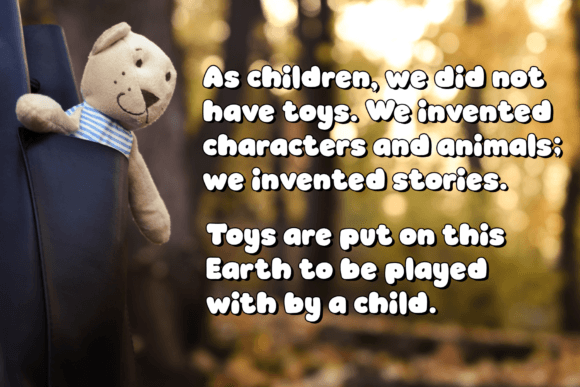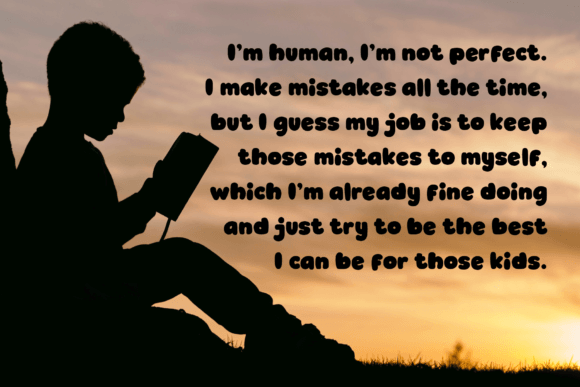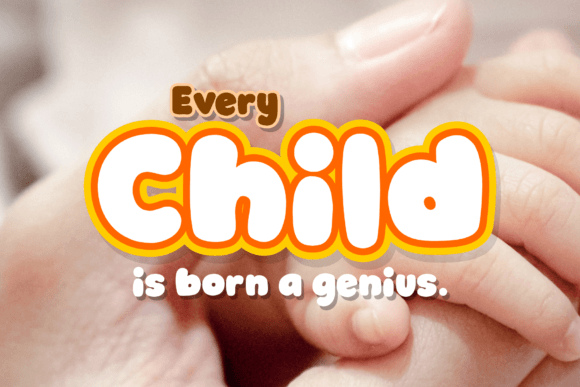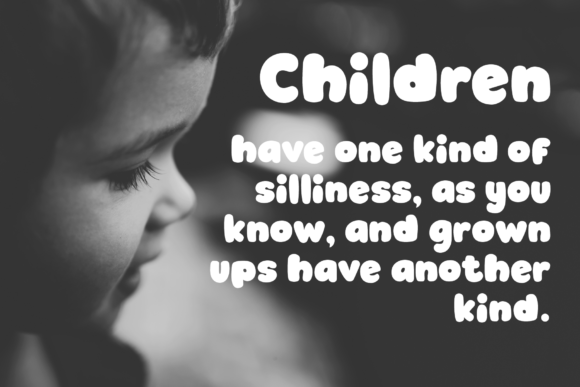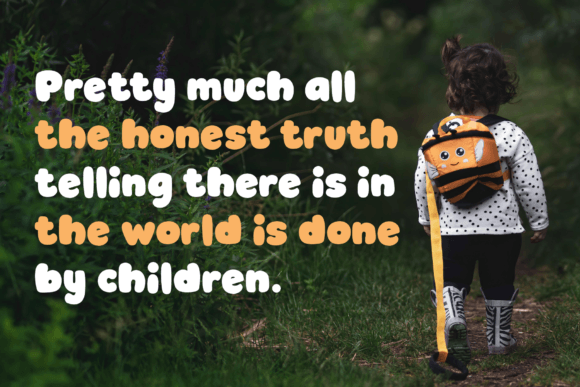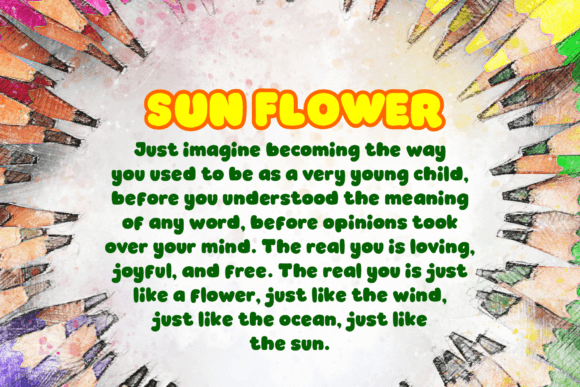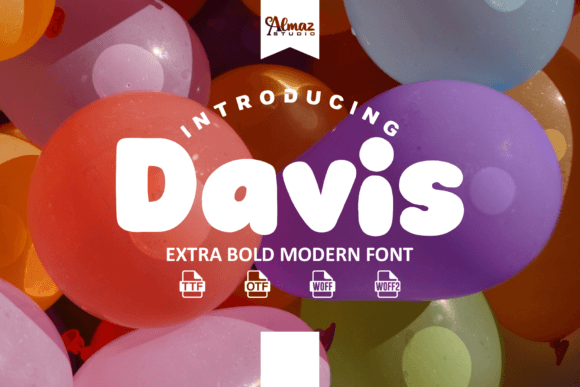
Davis Font: The Ultimate Retro Display Font for Playful Kids’ Designs
Are you a designer or crafter looking for a font that’s bold, fun, and perfect for kids’ themes? Look no further than Davis Font! This display retro font is specially crafted for children, kids, boys, kindergarten, birthday, and comic purposes. With its unique glyph and fun style, Davis Font is the perfect addition to your design toolkit.
Perfect for Kids’ Themes and Playful Designs
Davis Font is designed to bring a playful and energetic vibe to your designs. Its bold and fun style makes it perfect for kids’ themes, including books, online games, stationery, school supplies, posters, birthday invitations, YouTube covers, YouTube thumbnails, social media page covers, and more. Whether you’re creating content for kids or designing for a playful audience, Davis Font is the ideal choice.
Key Features of Davis Font
- Bold and Fun Style: Davis Font is a display retro font that’s designed to make a statement. Its bold and fun style is perfect for grabbing attention and adding a playful touch to your designs.
- Unique Glyph: Davis Font features a unique glyph that’s sure to set your designs apart. Its distinctive style adds a touch of personality to your text, making it perfect for kids’ themes and playful designs.
- Cartoon-Style Font: Davis Font has a cartoon-style that’s perfect for kids’ designs. Its fun and playful style is reminiscent of classic cartoons, making it ideal for kids’ content.
- Specially Crafted for Children: Davis Font is specially crafted for children, kids, boys, kindergarten, birthday, and comic purposes. Its playful style is designed to appeal to kids and add a fun touch to your designs.
Use Cases for Davis Font
Davis Font is a versatile font that can be used in a variety of design projects, including:
- Kids’ Books and Magazines: Davis Font is perfect for kids’ books and magazines, adding a playful touch to your content.
- Online Games: Davis Font is ideal for online games, adding a fun and energetic vibe to your game’s text and UI.
- Stationery and School Supplies: Davis Font is perfect for stationery and school supplies, adding a playful touch to your designs.
- Posters and Flyers: Davis Font is great for posters and flyers, adding a bold and eye-catching touch to your designs.
- Birthday Invitations: Davis Font is perfect for birthday invitations, adding a fun and playful touch to your designs.
- YouTube Covers and Thumbnails: Davis Font is ideal for YouTube covers and thumbnails, adding a bold and attention-grabbing touch to your video content.
- Social Media Page Covers: Davis Font is perfect for social media page covers, adding a fun and playful touch to your social media presence.
Why Choose Davis Font?
There are many fonts to choose from, but Davis Font stands out for its unique style and versatility. Here are just a few reasons why you should choose Davis Font for your next design project:
- Unique Style: Davis Font has a unique style that’s sure to set your designs apart.
- Playful Vibe: Davis Font adds a playful touch to your designs, making it perfect for kids’ themes and playful content.
- Versatility: Davis Font can be used in a variety of design projects, from kids’ books to online games and social media content.
Davis Font is a bold and fun display retro font that’s perfect for kids’ themes and playful designs. With its unique glyph and fun style, Davis Font is the perfect addition to your design toolkit. Whether you’re creating content for kids or designing for a playful audience, Davis Font is the ideal choice. So why wait? Download Davis Font today and start creating playful and engaging designs that kids will love!